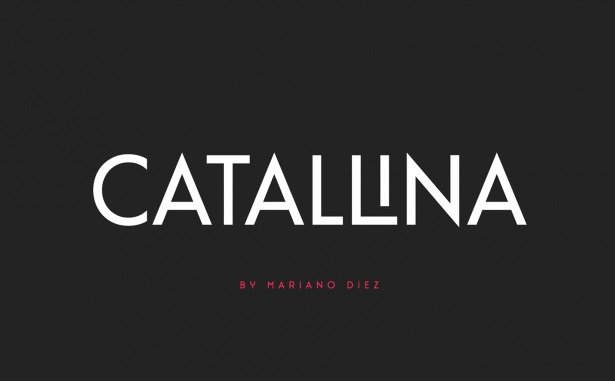
Catallina Font
Catallina Basic Sans Font is a model Sans Serif Font. It’s an elegant and classy display font inspired by the Art Deco. The original and stylish ligatures will help you create a unique design. It’s an all caps sans serif font, inspired in 1920s typography and Art Deco,
It contains alternate characters for many letters and more than 50 ligatures! Perfect for poster, logo, headline, display and many more. Use this to elevate your modern techno brand and projects. This font is free for PERSONAL AND COMMERCIAL USE.